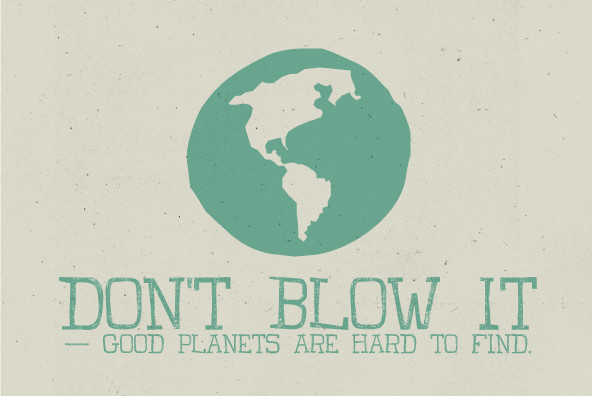
Claire is a handmade typography that has a relaxed look and committed to the environment, which is ideal for all types of projects related to environmental care and everything in between. Be green! Act now!